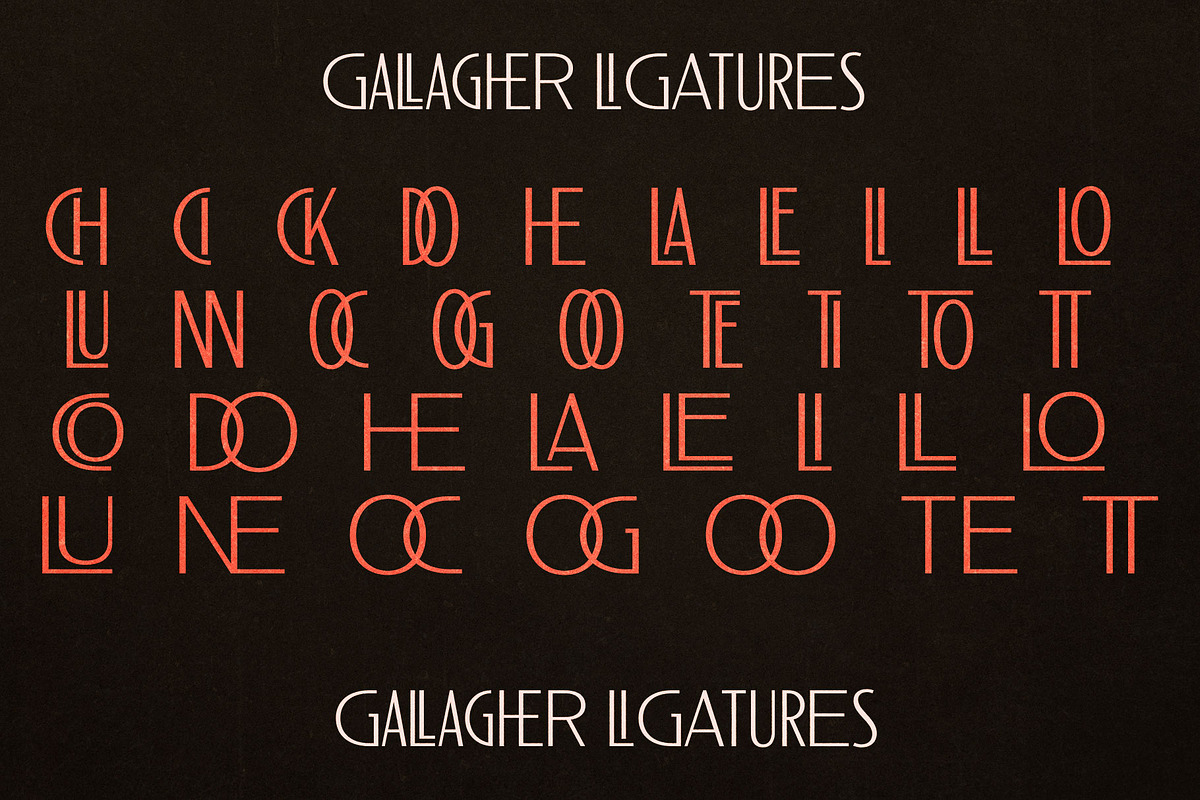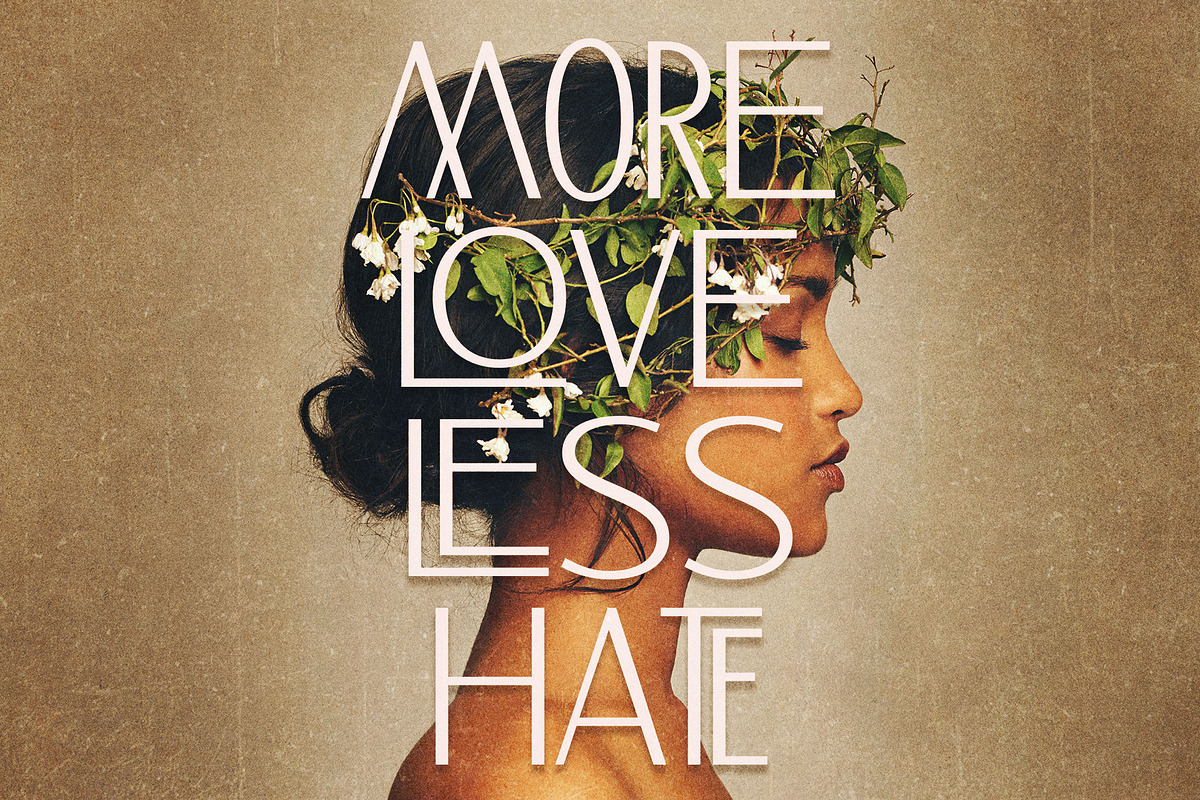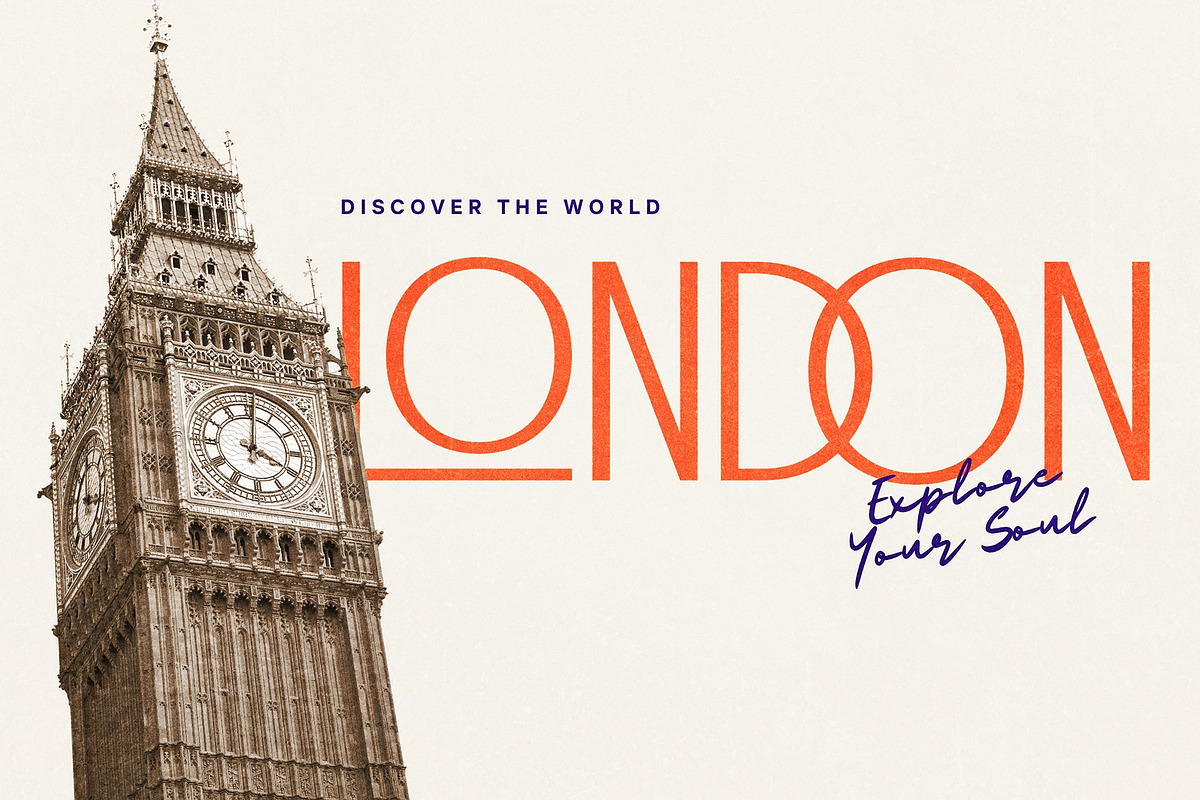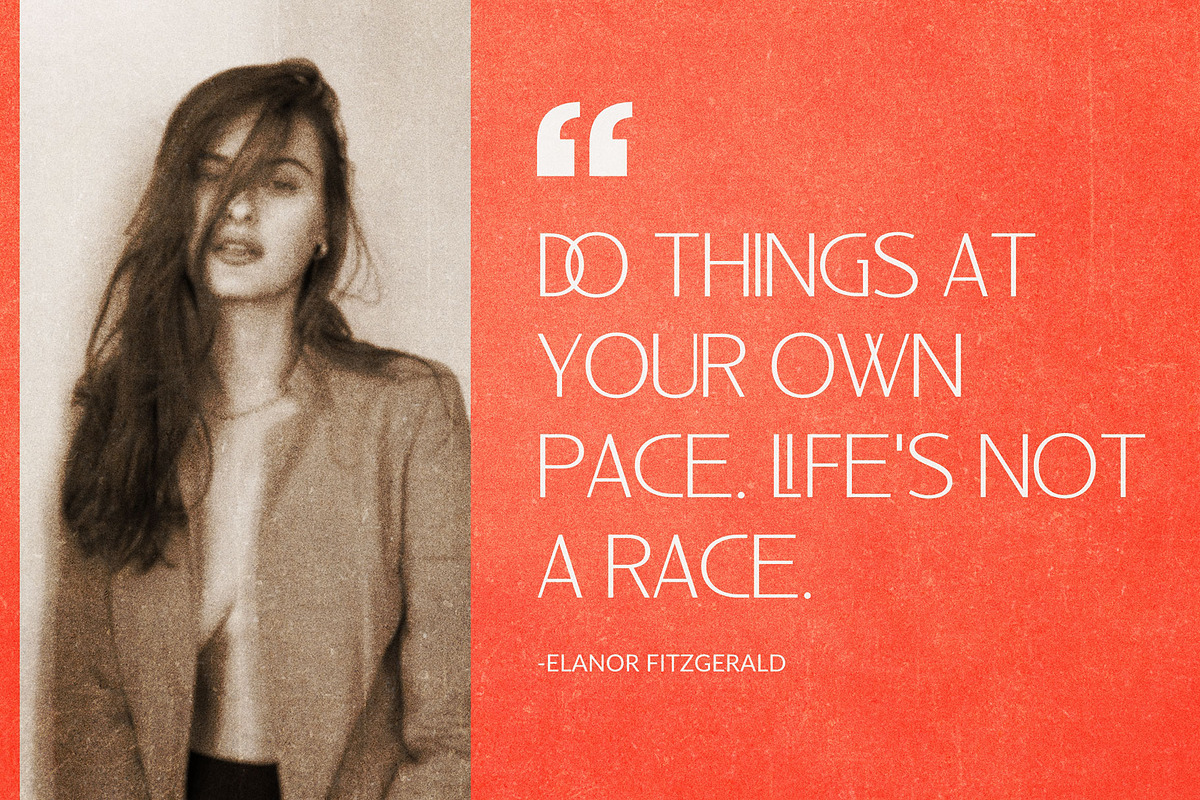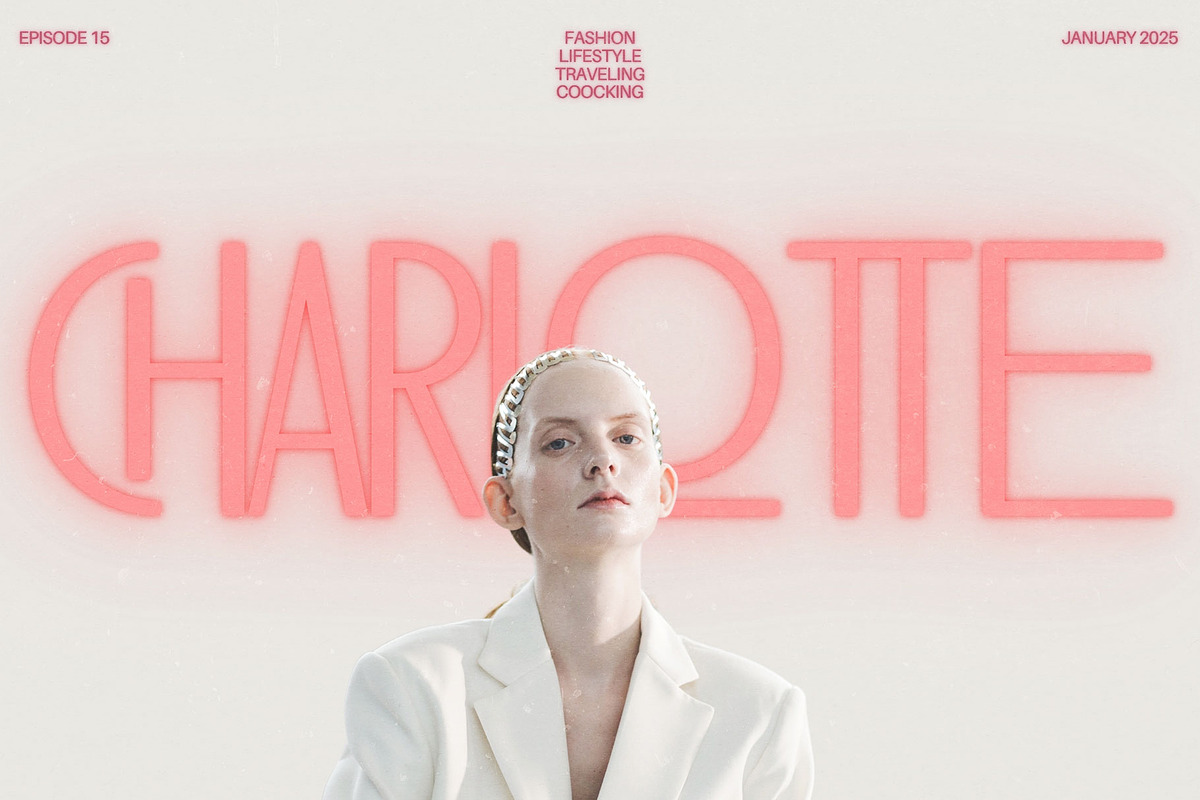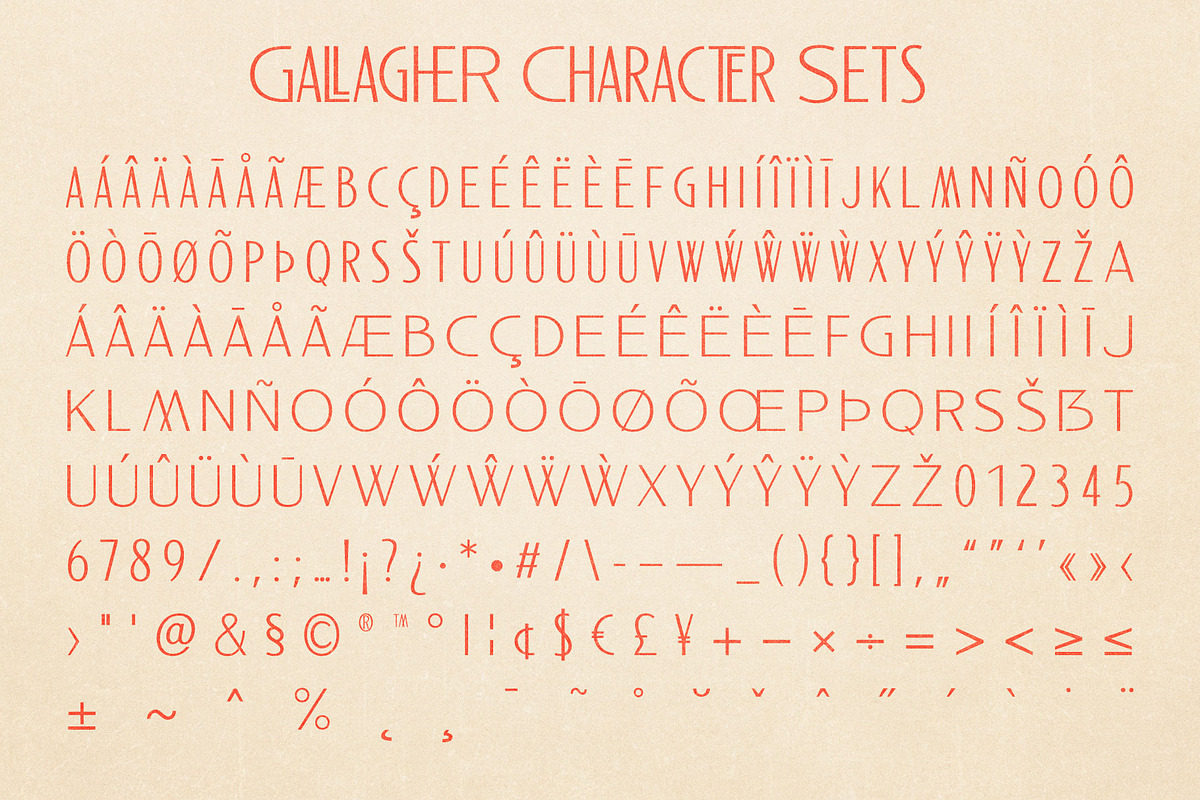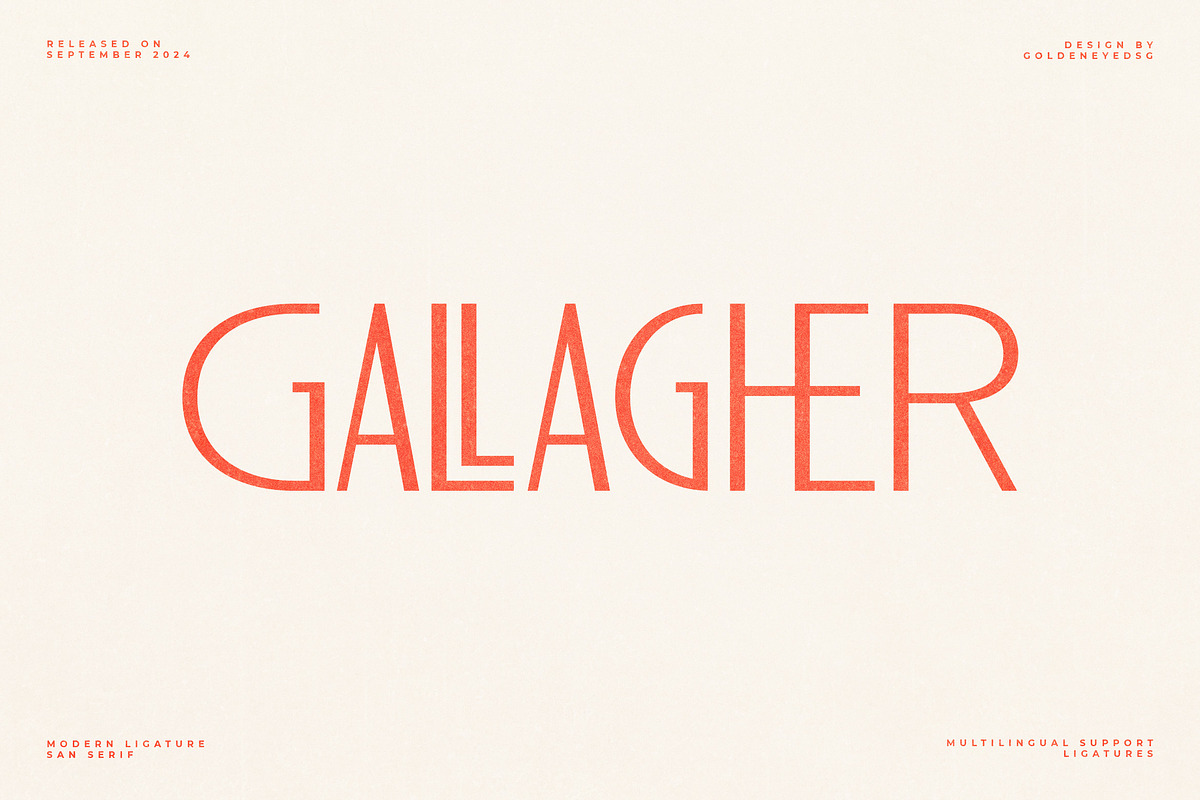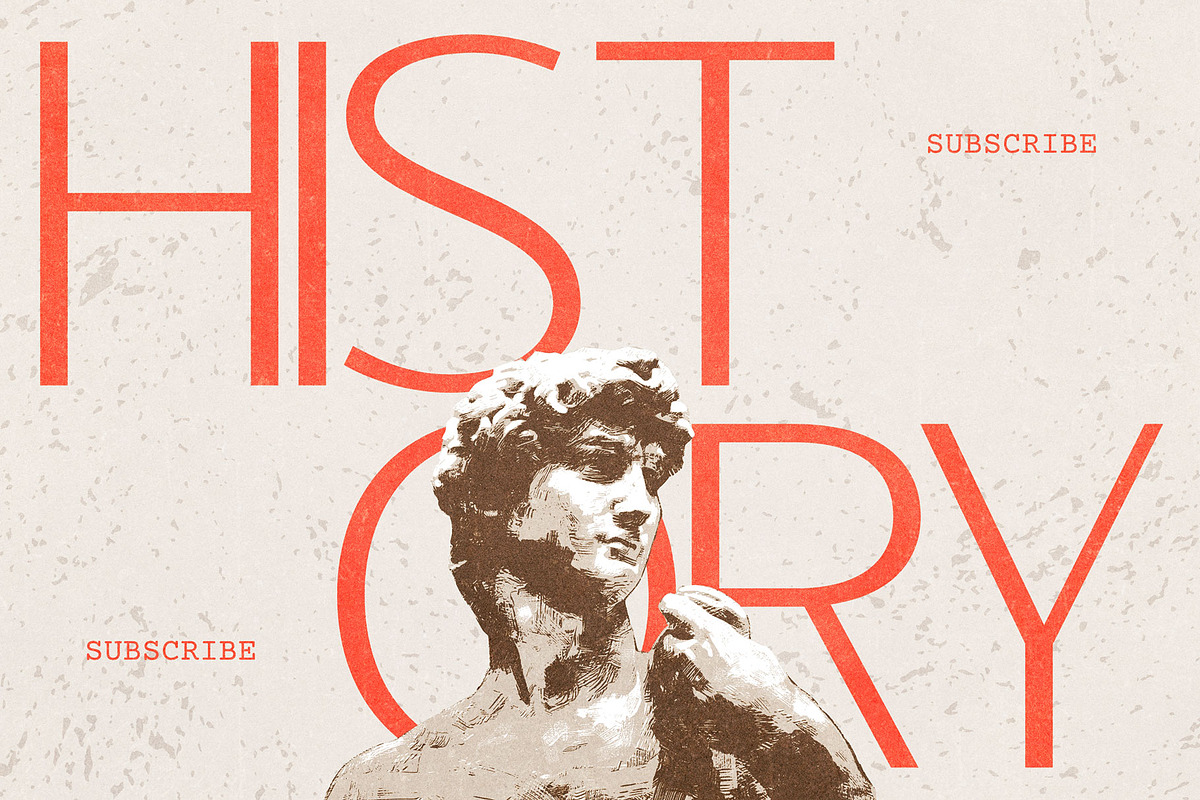
Gallagher - Ligature Sans
Gallagher is a modern ligature san serif font that offers a fashionable touch. It doesn’t only look sophisticated but also charming. What makes it interesting is the delicate curves, bringing an elegant style. The classy ligature also becomes one of its characteristics and appeals. With calligraphic influences, this font gives a contemporary feeling. So, it is perfect for various designs such as beauty designs, elegant crafting, layout designs, ad branding, design templates, etc.